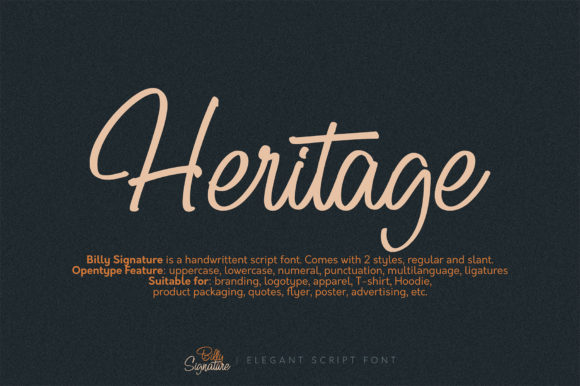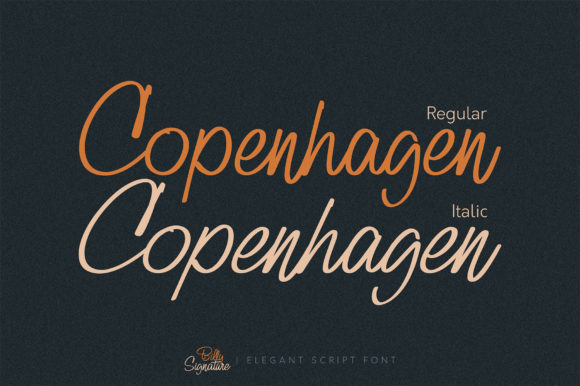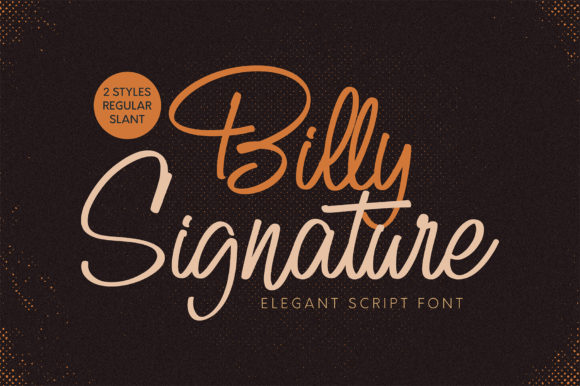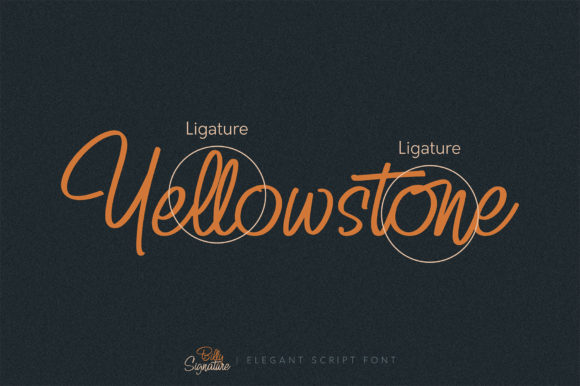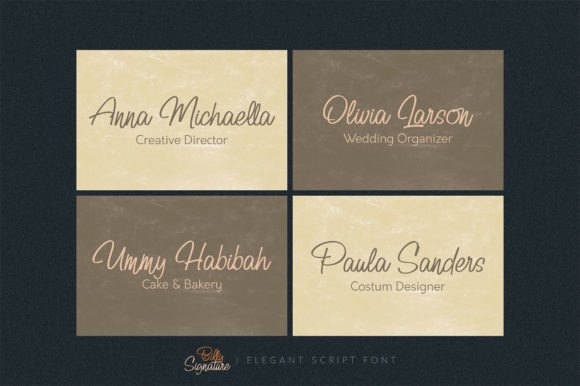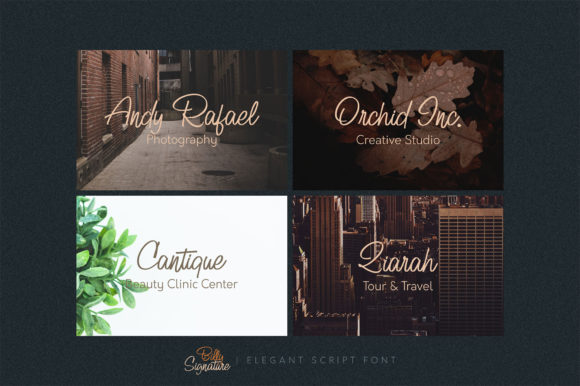
Unlock the Power of Handwritten Elegance
Remember that moment when you’re brainstorming a new project, and the perfect font suddenly pops into your head? It’s like a spark of creativity has ignited, and everything starts falling into place. For many designers, that moment is all about finding the perfect font to bring their vision to life. That’s where the Billy Signature Font comes in – a stunning, handwritten font that’s sure to elevate your projects to new heights.
With its classy calligraphic influences and modern twist, the Billy Signature Font is a true masterpiece. Whether you’re designing a wedding invitation, a branding package, or a simple greeting card, this font is sure to add a touch of sophistication and personality. As a designer, you’ll appreciate its versatility and the freedom it gives you to create truly unique and memorable designs.
Billy Signature Font Key Features
- Font Style: Billy Signature Font is a unique, handwritten font with a personal and elegant touch, perfect for signatures, logos, and other creative projects.
- Character Set: The font includes a wide range of characters, including uppercase and lowercase letters, numbers, punctuation marks, and special characters, making it versatile for various applications.
- Unique Characteristics: Billy Signature Font features a unique, handwritten style with subtle flair and movement, making it perfect for adding a personal touch to designs.
Billy Signature Font Review
Overall, I think the Billy Signature Font has some great qualities that make it a solid choice for designers, but it also has some limitations that might be a deal-breaker for some.
- Unique Character: The Billy Signature Font has a distinct and stylish aesthetic that can add a touch of personality to any project.
- High-Quality Design: The font is well-designed, with clean lines and a cohesive look that makes it easy to read.
- Flexibility: The font comes in a range of weights and styles, making it versatile and suitable for a variety of projects.
- Limited Character Set: The font only includes a limited set of characters, which might not be suitable for projects that require a wide range of languages or special characters.
- Lack of Customization: While the font has some built-in styles and weights, it’s not possible to customize it extensively, which might limit its appeal for designers who need more flexibility.
I would say that the Billy Signature Font is a solid choice for designers who are looking for a unique and stylish font for their projects. However, it might not be the best choice for designers who need a font with a wide range of characters or extensive customization options.
Use the Billy Signature Font to add a personal touch to your designs, such as handwritten notes, quotes, or signatures. It’s also great for creating a nostalgic or vintage feel. Experiment with different font sizes, colors, and styles to add depth and dimension to your design.